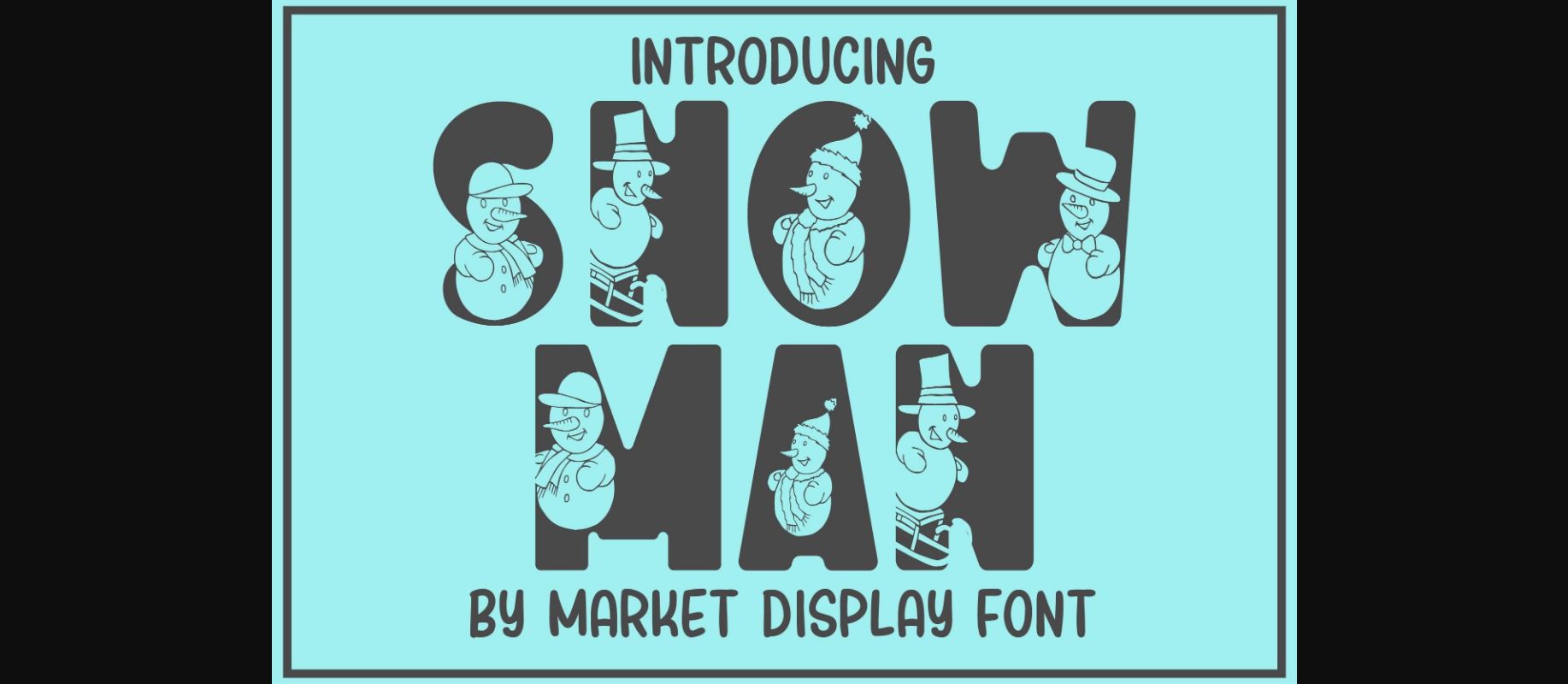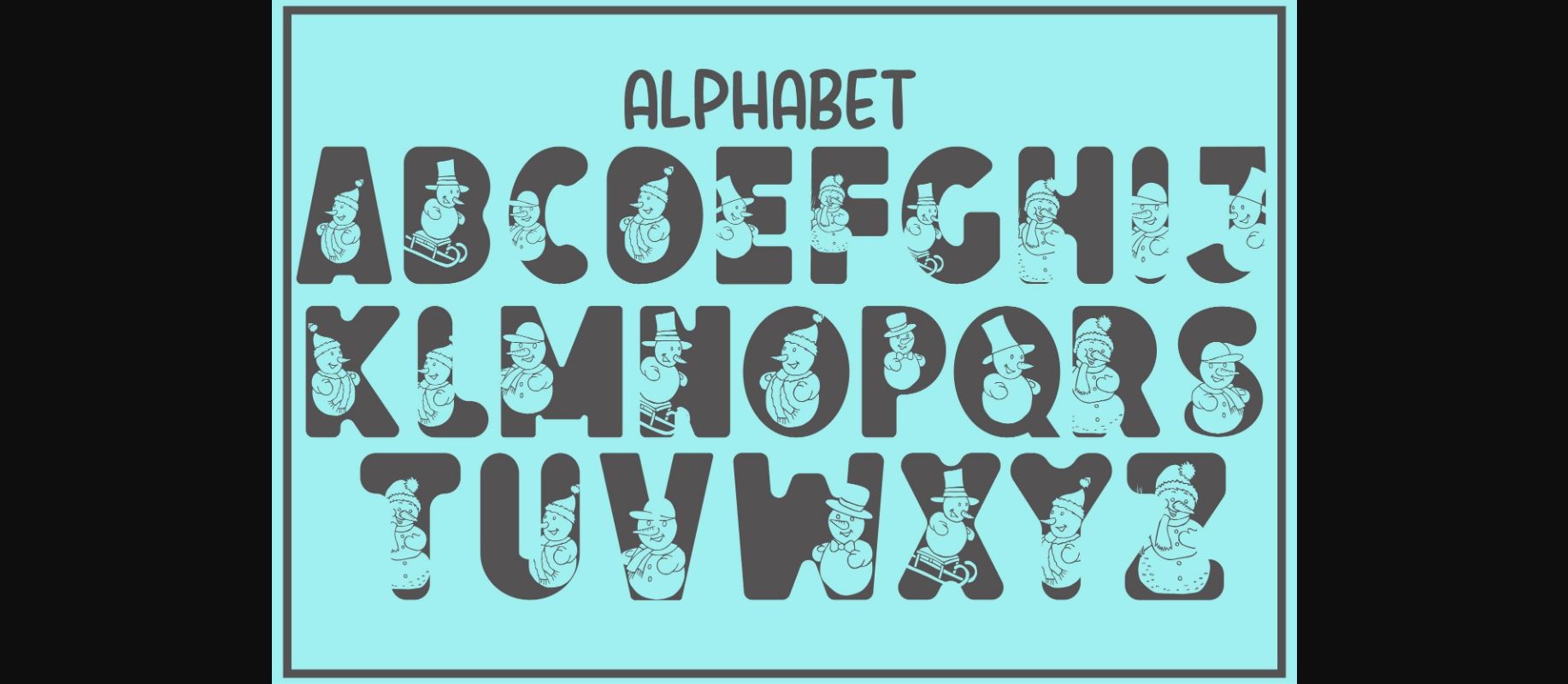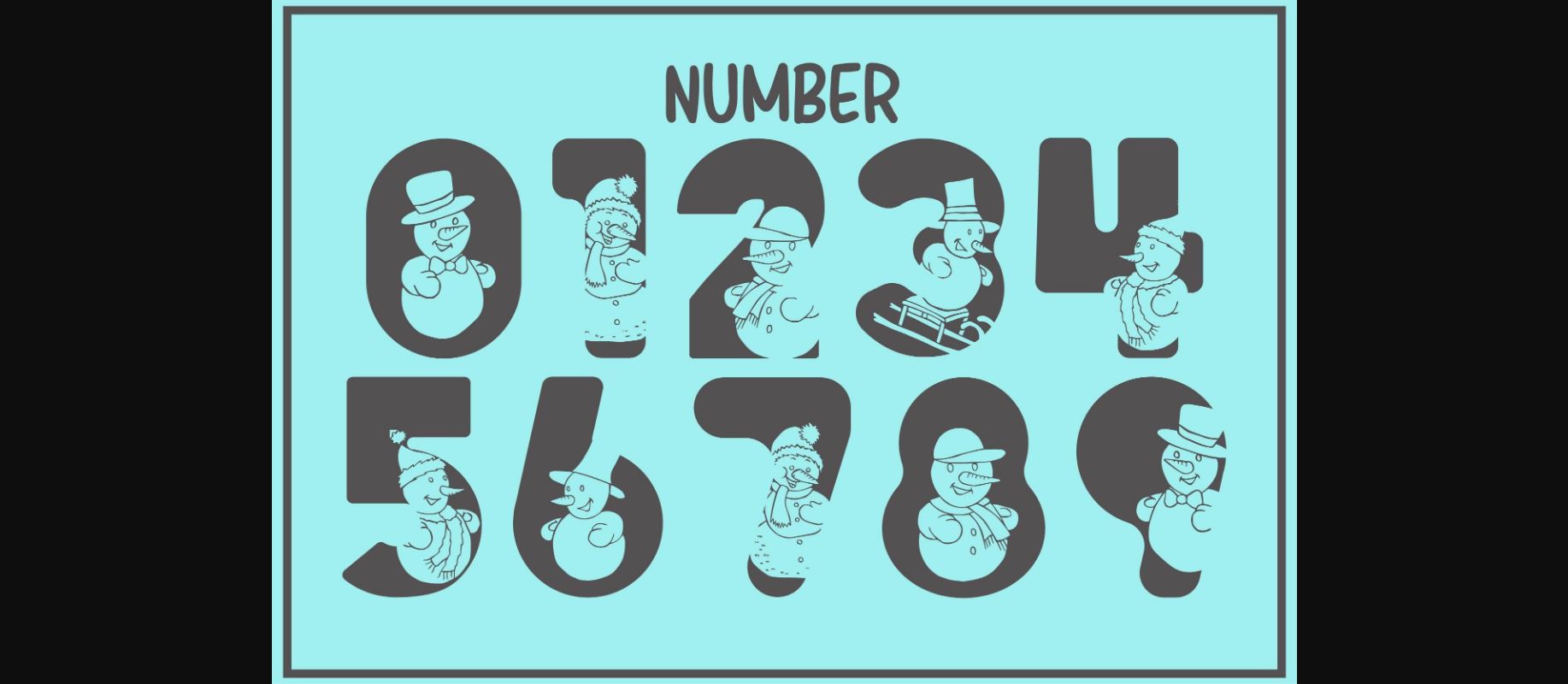
HomeDecorative FontsSnowman Font Decorative Fonts Snowman Font FacebookXPinterestWhatsApp 1 of 5 ... Snowman Font Poster 2... Snowman Font Poster 3... Snowman Font Poster 4... Snowman Font Poster 5... About Snowman Font Snowman is a fun and joyful decorative font. Use it confidently for each of your favorite winter designs and make them come alive! DOWNLOAD NOW People also explored Organika Pontiac Font Debusen Elizabeth Font Baby Gentha Font Quickly Font Sauvage Neon Script Font Remaglide Font Sweet Revenge Font 264 0 TagsSnowmanSnowman Font Previous articleLove Jar Monogram FontNext articleAnimal Monster Font LEAVE A REPLY Cancel reply Comment: Please enter your comment! Name:* Please enter your name here Email:* You have entered an incorrect email address! Please enter your email address here Website: Save my name, email, and website in this browser for the next time I comment. Personal Use Free BD Medled Personal Use Free Read more about this font Nesto Copper 42 Font Personal Use Free Read more about this font Deco Neue Wilde Personal Use Free Read more about this font Wildwest Personal Use Free Read more about this font BLOG Modern Sans-Serif Fonts That Brands Love in 2025 In 2025, modern sans-serif fonts remain a top choice for brands looking to project clarity, professionalism, and... Transform Your Website: Elevate Your Typography with 7 Best Web Font Generators Exploring Font Trends Top 7 Google Fonts Alternatives for Faster and Privacy-Friendly Web Design (2025)